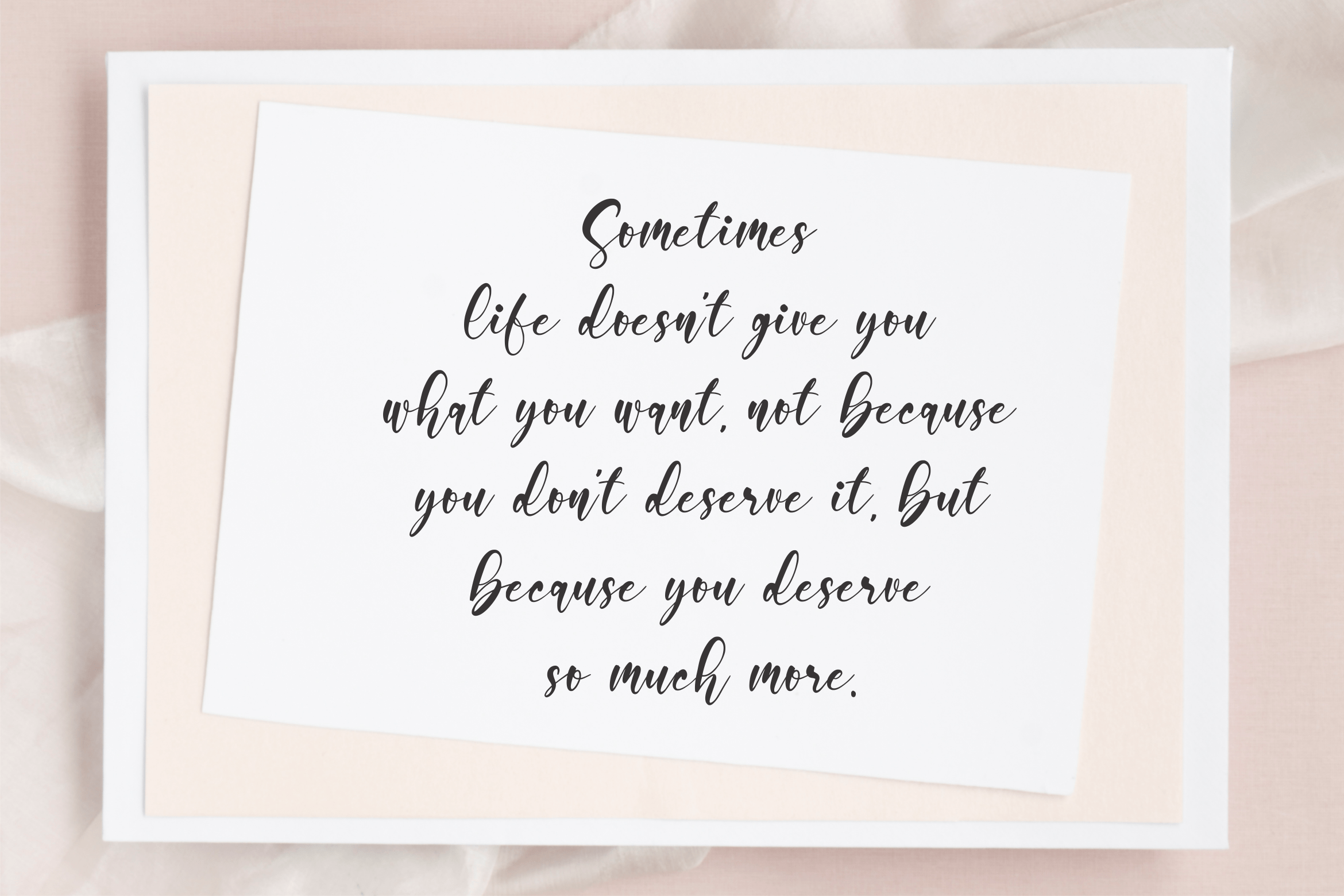
Spellfeel Font
Spellfeel Script Font
This is a modern handwritten font perfect for product packaging, branding projects, magazines, social media posts, weddings, or just used to express words above the background.